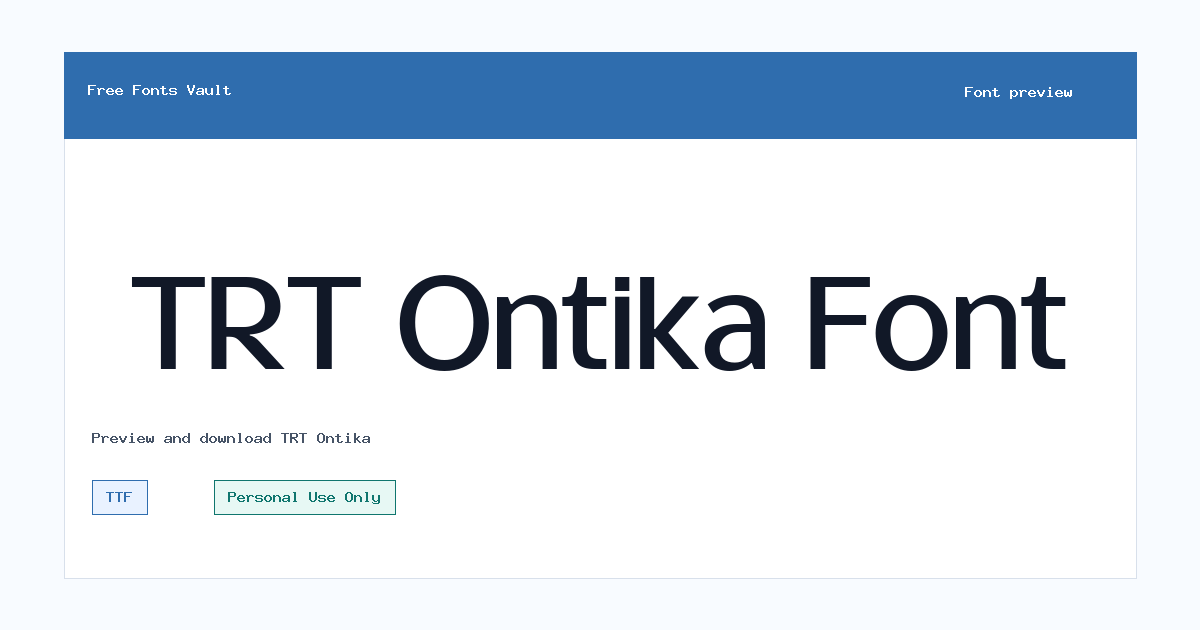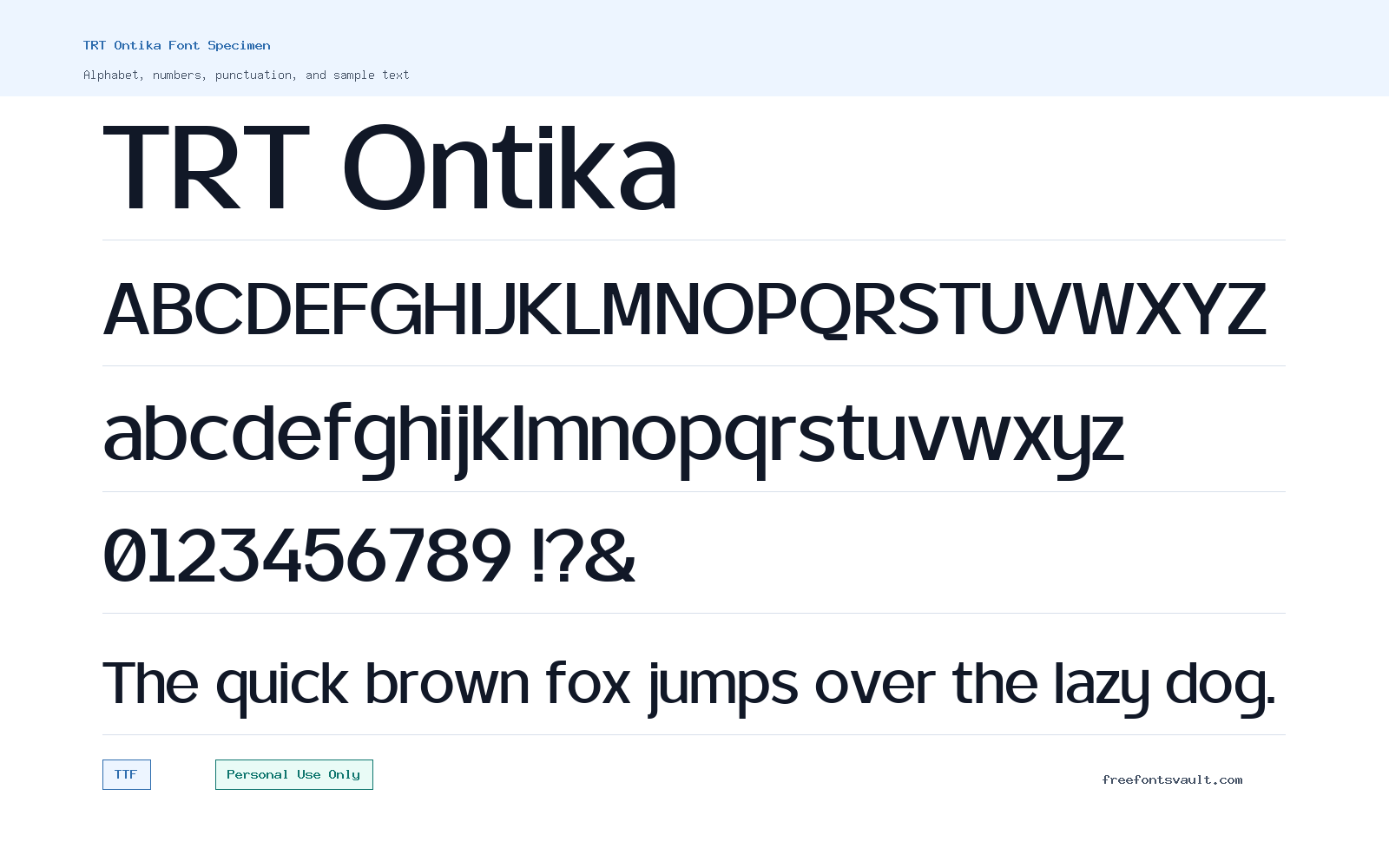
TRT Ontika
- Designer Arif Rijal of Truetype
- Foundry Truetype
TRT Ontika is a sans serif font family for personal projects, previews, and design testing. It comes in several demo TTF weights, making it useful when you want to compare light, regular, medium, and bold text styles before choosing a final look.
TRT Ontika has the practical feel of a multi-weight sans serif family: clean enough for straightforward layouts, but flexible enough to test across headings, short labels, posters, social graphics, and simple branding drafts. Because the downloadable files are demo TTF fonts, it is a good choice for mockups, personal artwork, and experiments where you want to see how one type family behaves at different levels of emphasis.
- Includes light, regular, medium, semibold, bold, and extra bold style options
- Personal design mockups, posters, social graphics, and headline tests
- Comparing weight contrast in a single sans serif family before final production
TRT Ontika is credited to Arif Rijal of Truetype, with Truetype listed as the foundry.
What styles can I try?
Who designed TRT Ontika?
TRT Ontika is credited to Arif Rijal of Truetype.